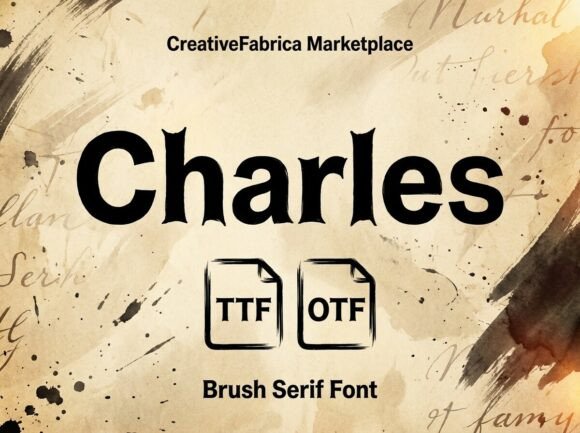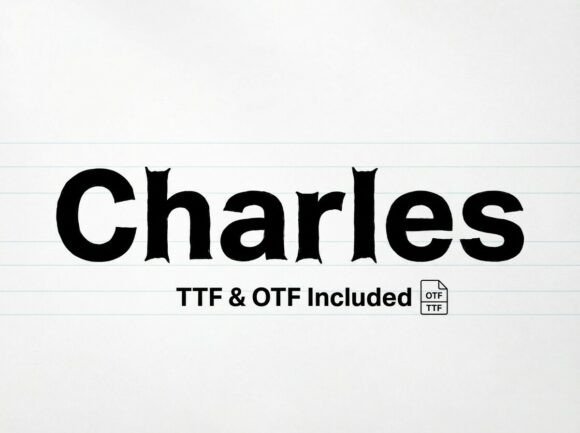
Unleash the Power of Charles Font: A Handcrafted Display Typeface
In the world of typography, a font can make or break the visual identity of a brand, product, or creative project. For those seeking a typeface that exudes boldness, mystery, and a touch of the macabre, Charles font is the perfect solution. This handcrafted display font is designed to command attention, blending structural integrity with a unique aesthetic that is sure to leave a lasting impression.
The Inspiration Behind Charles Font
Charles font draws inspiration from classic Victorian typography, a style known for its ornate and intricate letterforms. However, this font takes a modern approach, infusing it with a gritty, edgy feel that sets it apart from more traditional typefaces. The result is a font that feels both timeless and contemporary, perfect for a wide range of creative applications.
Key Features of Charles Font
So, what makes Charles font so unique? Here are a few key features that set it apart:
- Heavy, high-contrast letterforms: Charles font features bold, chunky letterforms with high contrast between thick and thin strokes. This creates a dramatic, eye-catching effect that is perfect for headlines and titles.
- Sharp, flared serifs: The serifs on Charles font are sharp and flared, adding a touch of sophistication and elegance to the overall design.
- Weathered, ink-stained aesthetic: The font has a weathered, ink-stained look that gives it a sense of age and character. This also helps to add a touch of grit and realism to the design.
Use Cases for Charles Font
So, what types of projects is Charles font best suited for? Here are a few ideas to get you started:
- Mystery-themed branding: Whether you’re creating a logo for a detective agency or a mystery novel, Charles font is the perfect choice. Its bold, intriguing aesthetic is sure to grab attention and set the tone for a thrilling experience.
- Dark academia editorial headers: Add a touch of sophistication and mystery to your editorial content with Charles font. Its classic, Victorian-inspired design is perfect for academic or literary publications with a dark or Gothic twist.
- Cinematic thriller titles: Make your movie or TV show titles stand out with Charles font. Its bold, eye-catching aesthetic is sure to grab attention and set the tone for a thrilling experience.
- Gothic apparel: Charles font is also perfect for fashion brands looking to create a bold, edgy aesthetic. Use it to create eye-catching headlines or titles for your gothic-inspired apparel.
Why Choose Charles Font?
With so many fonts to choose from, why should you choose Charles? Here are a few reasons:
- Timeless authority: Charles font has a timeless quality that is sure to lend authority and gravitas to your design.
- Intrigue and mystery: The font’s unique aesthetic is sure to pique the interest of your audience, adding a touch of intrigue and mystery to your design.
- Versatility: Charles font is versatile enough to be used in a wide range of creative applications, from branding and editorial design to film and fashion.
In conclusion, Charles font is a powerful, handcrafted display typeface that is sure to command attention and leave a lasting impression. With its bold, high-contrast letterforms, sharp serifs, and weathered aesthetic, it’s the perfect choice for designers and crafters looking to add a touch of mystery and intrigue to their designs. Whether you’re working on a mystery-themed branding project, dark academia editorial content, or gothic-inspired apparel, Charles font is the premier choice.
Get Ready to Make a Statement with Charles Font
So, are you ready to make a statement with Charles font? With its unique blend of boldness, sophistication, and intrigue, this font is sure to elevate your design to the next level. Try it out today and discover the power of Charles font for yourself!